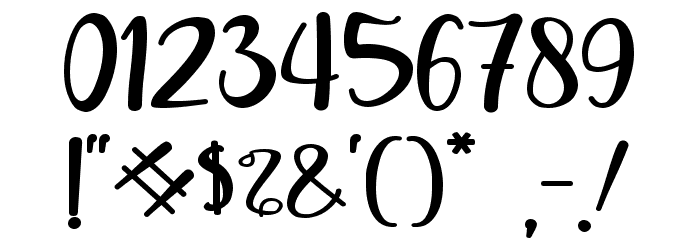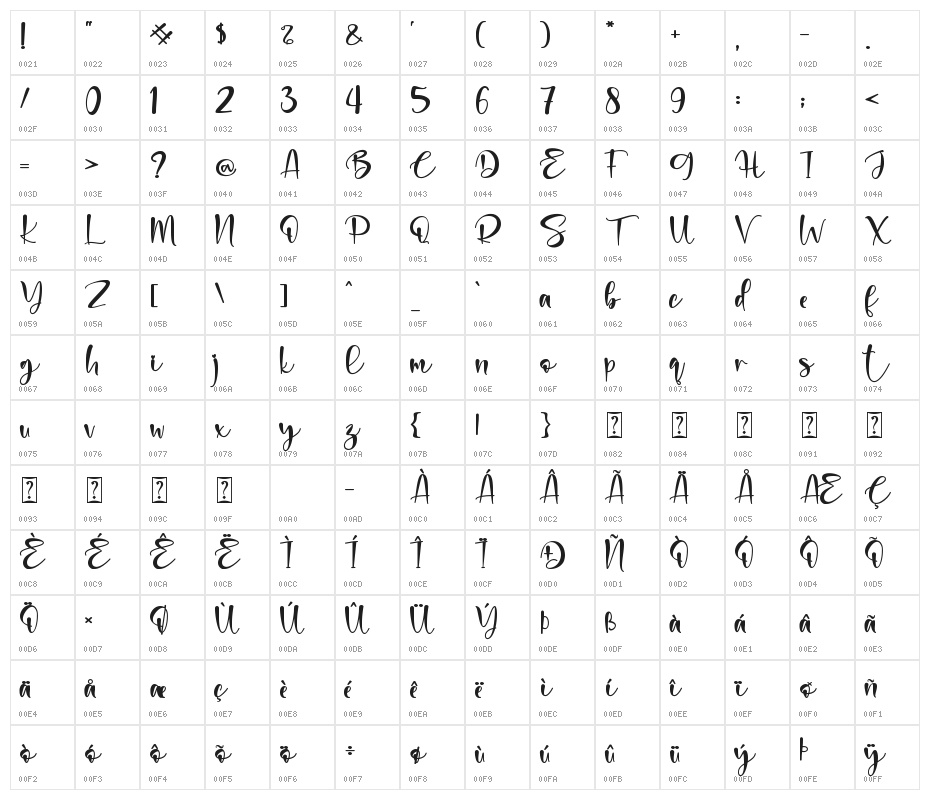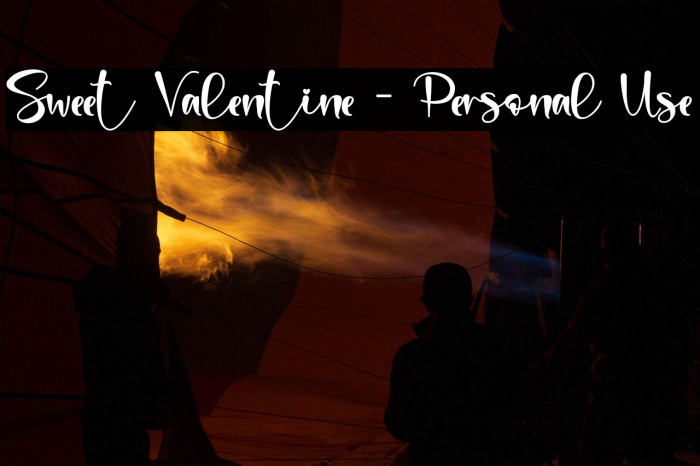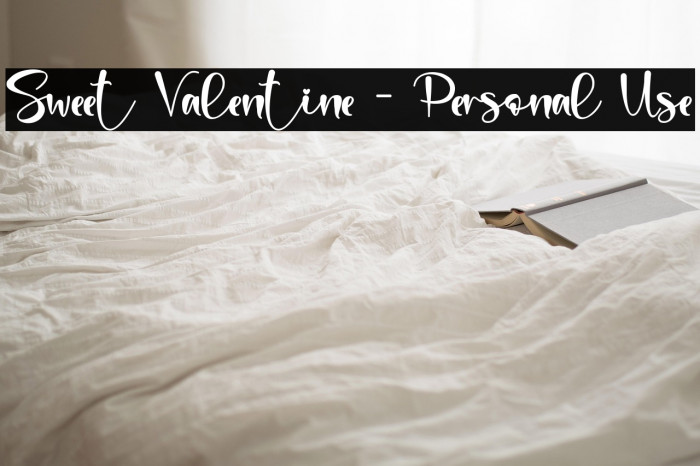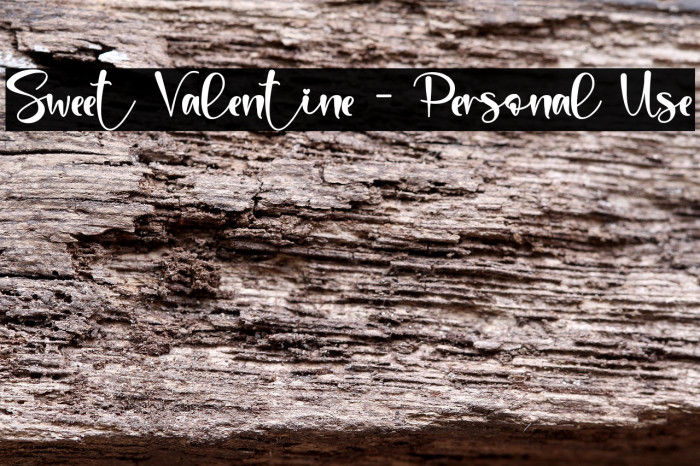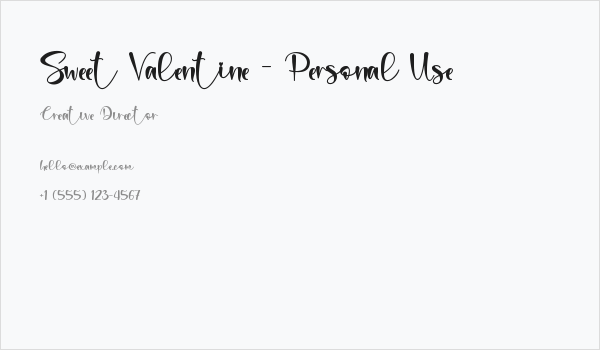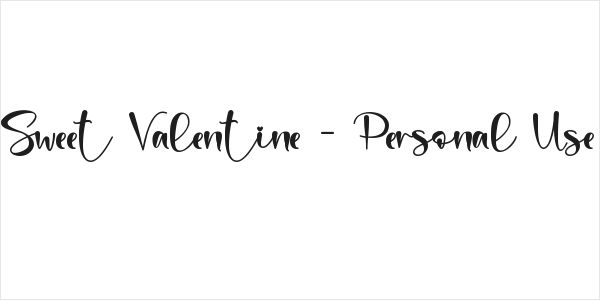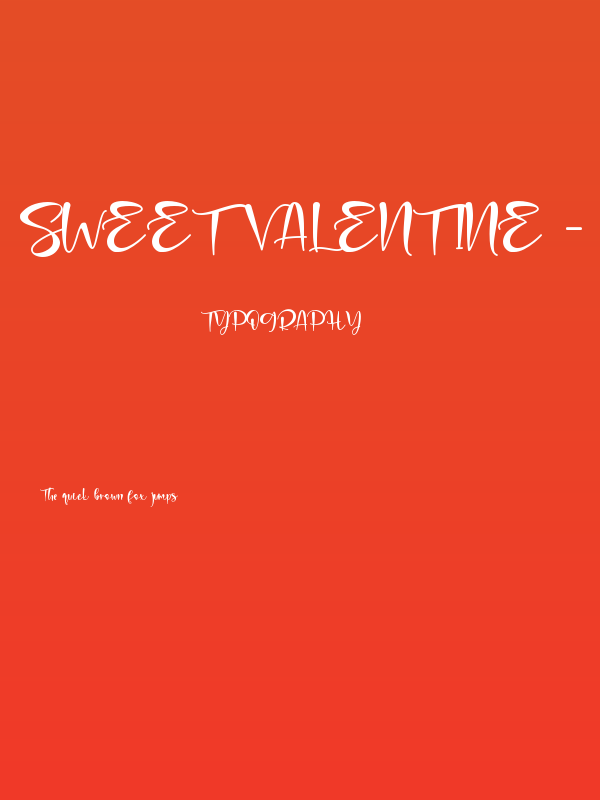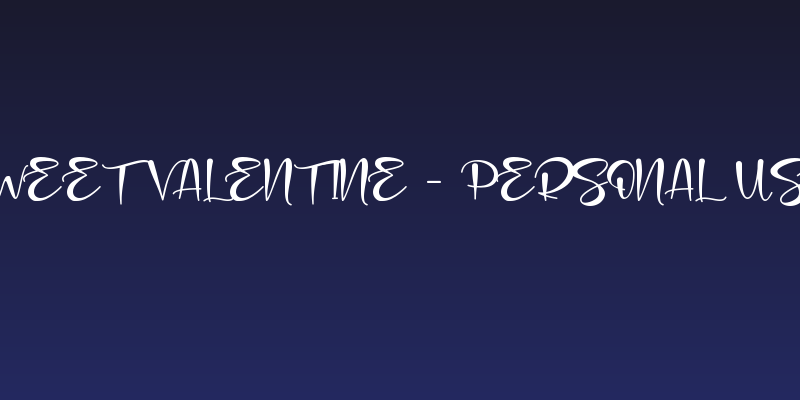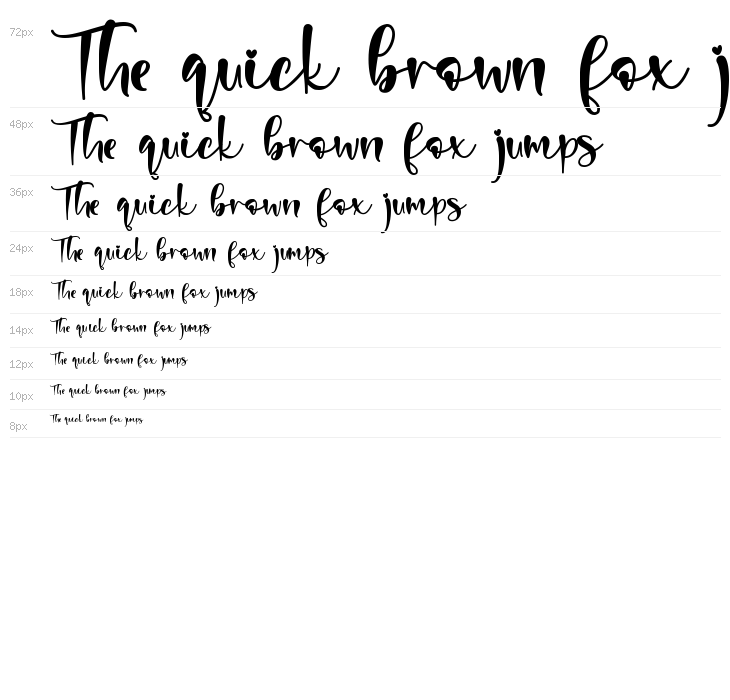
Sweet Valentine - Personal Use Font
Sweet Valentine - Personal Use Description
This font features a playful and romantic script style, characterized by its flowing, cursive letters that exude a sense of whimsy and elegance. The uppercase letters are bold and expressive, with unique flourishes that add a touch of personality to each character. The lowercase letters maintain a consistent flow, with some characters featuring charming heart-shaped accents. The numerals are bold and clear, ensuring readability while maintaining the overall playful aesthetic. Special characters are creatively designed, complementing the font's romantic theme. This font is perfect for projects that require a touch of elegance and charm, such as wedding invitations, greeting cards, and personal branding.
| Overall Style | Romantic, Playful |
| Use Case | Headlines, Invitations, Logos |
| Proposed Projects | Ideal for wedding invitations, greeting cards, personal branding, and romantic-themed designs. |